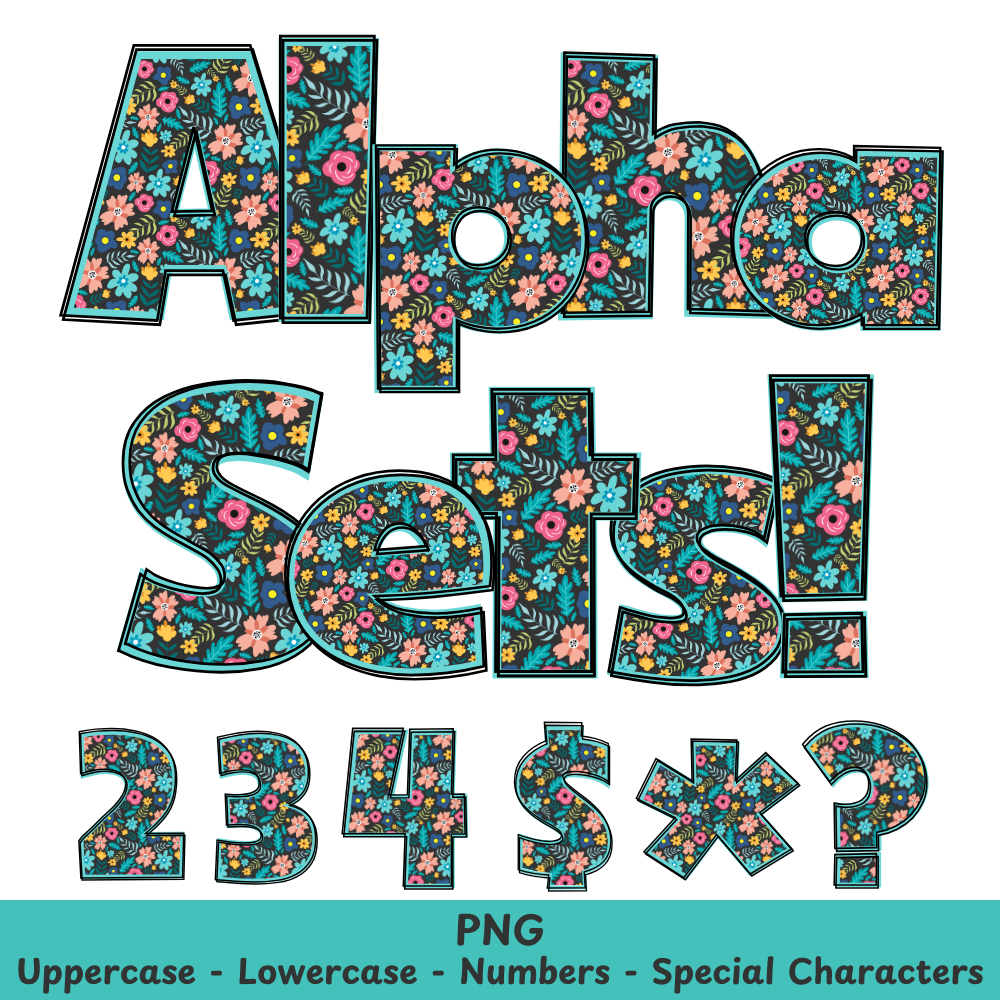
Mint Green Flowers PNG Font
Mint Green Flowers Alpha Set PNG Font Pack
Add a touch of natural beauty to your crafts with Mint Green Flowers PNG Font. These high-quality PNG images can be used in a variety of projects including sublimation and more. Enjoy the vibrant colors and intricate details in each letter, bringing a unique and elegant touch to your designs.